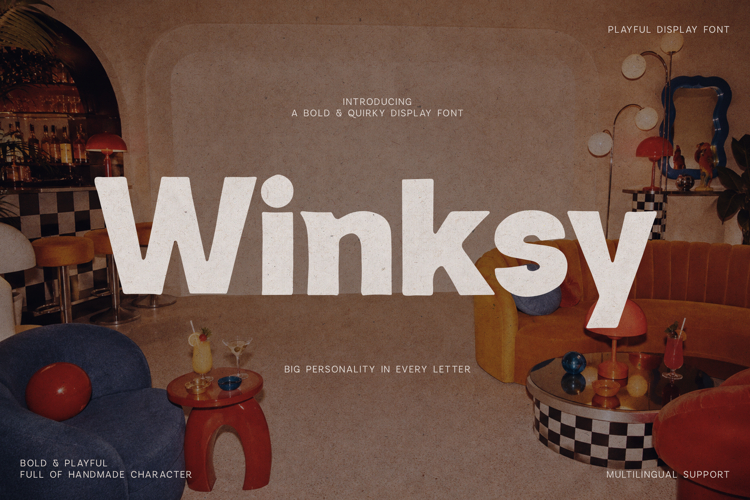
Winksy Bold Playful Display Font
Meet Winksy, a bold and playful display font packed with quirky shapes, handmade character, and irresistible personality. Its chunky letterforms and slightly imperfect details create a friendly, expressive look that instantly makes headlines and branding feel more memorable.
Winksy is ideal for logos, posters, packaging, social media graphics, editorial layouts, children’s designs, merchandise, event promotions, album covers, restaurant branding, and creative advertising. Its strong visual impact works beautifully for both retro-inspired projects and modern, personality-driven design.
The font includes uppercase and lowercase letters, numerals, punctuation, symbols, currency signs, and extensive multilingual support, giving you everything needed to build bold and cohesive designs for an international audience.
Perfect for designers looking for a fun display font, quirky branding font, bold headline typeface, or handcrafted sans serif that feels playful without losing readability.